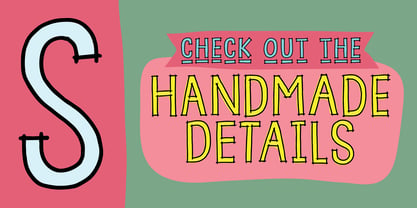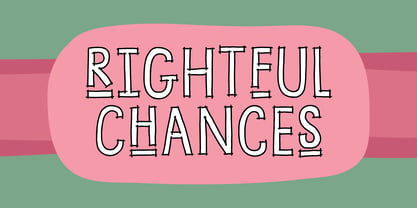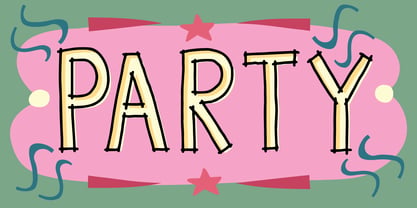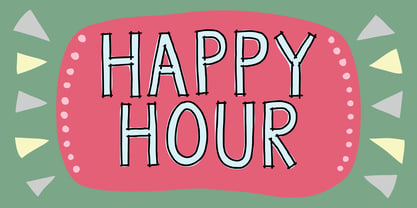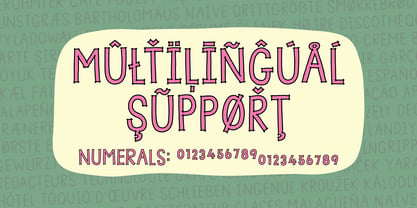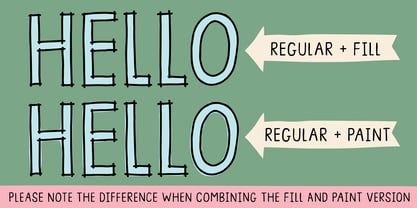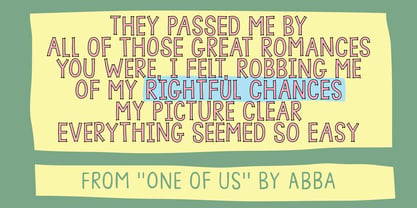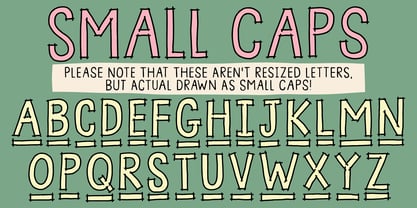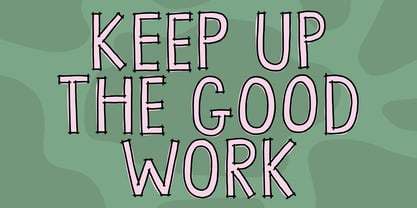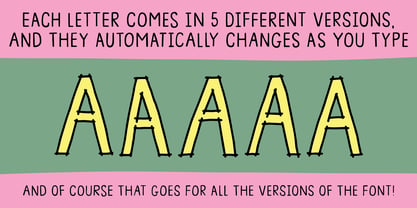
Rightful Chances
Die Schriftfamilie Rightful Chances wurde von Jakob Fischer entworfen und von PizzaDude.dk veröffentlicht. Rightful Chances enthält 4 Stile und Familienpaketoptionen. Mehr über diese Familie
In case your creative project needs a clear, legible, handmade and organic looking headline - I may have something for you here! Rightful Chances (named after an old ABBA song) has got all that - and it even comes in several different versions: Outline, Fill, Paint and Solid. All versions comes with both Small Caps (I actually drew all the letters, rather than just resizing the letters!) and Contextual Alternates, which offers 5 different versions of each letter.